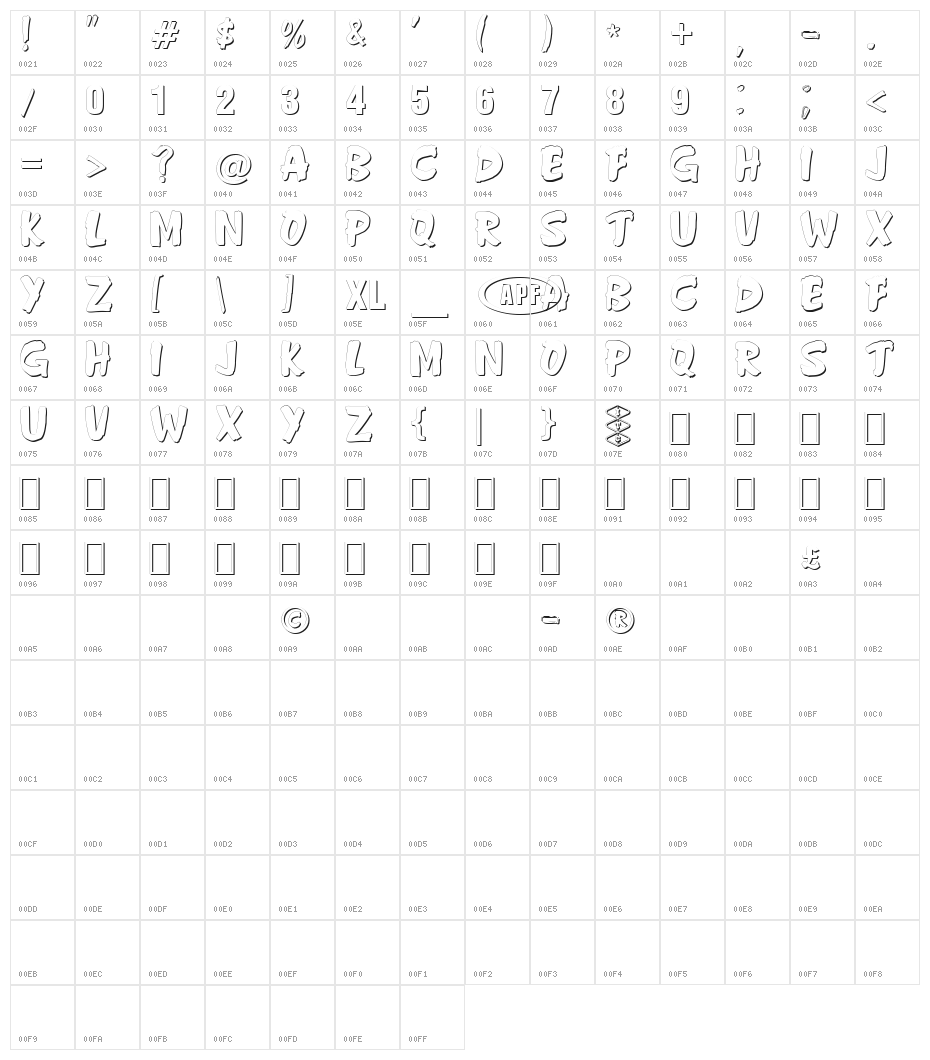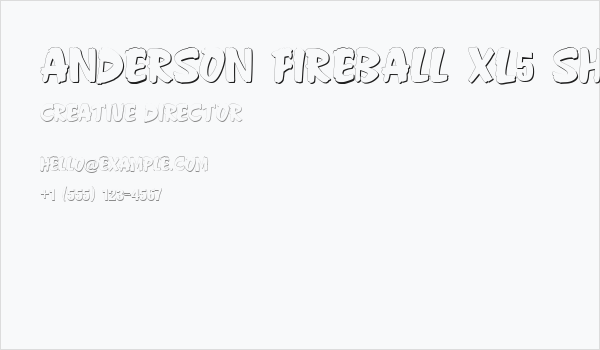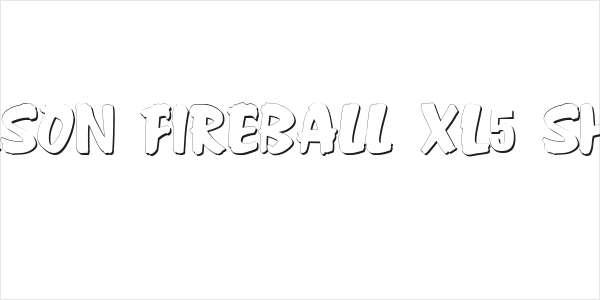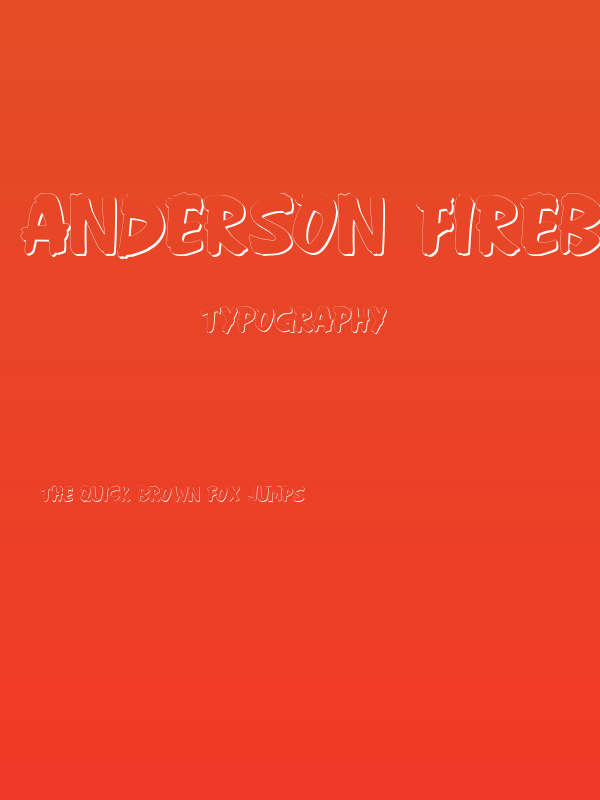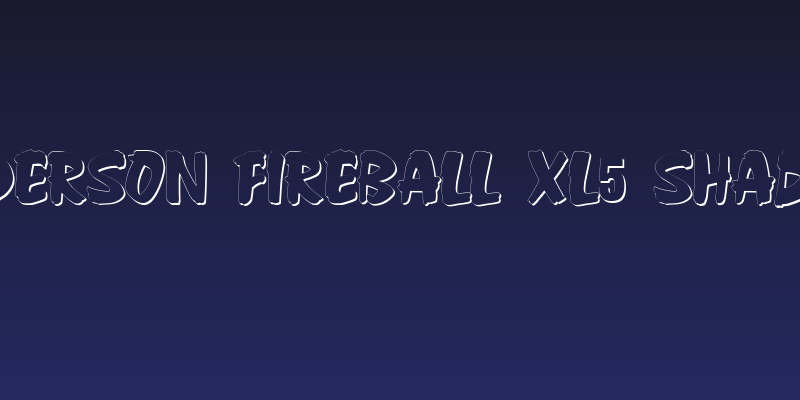
Anderson Fireball XL5 Shadow Font
Anderson Fireball XL5 Shadow Description
This font features a bold, playful style with a distinctive shadow effect that adds depth and dimension to each character. The letters are uppercase and lowercase, with a consistent thickness that maintains readability while offering a unique visual appeal. The numbers and special characters follow the same design, ensuring a cohesive look across all text elements. The shadow effect gives the font a dynamic and energetic feel, making it suitable for eye-catching designs.
| Overall Style | Playful, Dynamic |
| Proposed Projects | Ideal for comic books, children's book covers, playful branding, posters, and any design requiring a fun and dynamic appearance. |